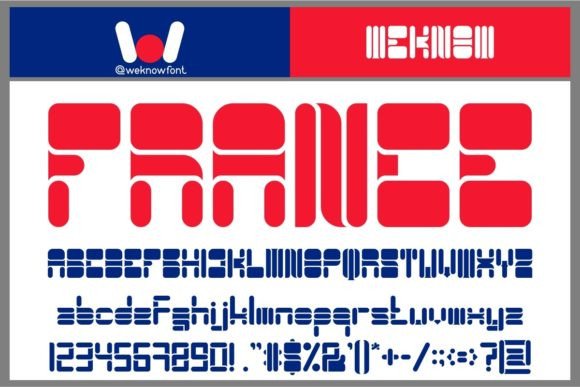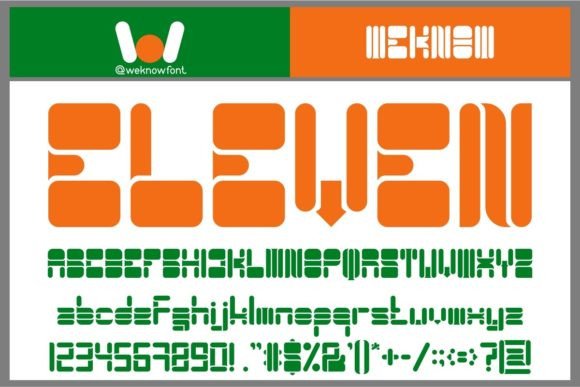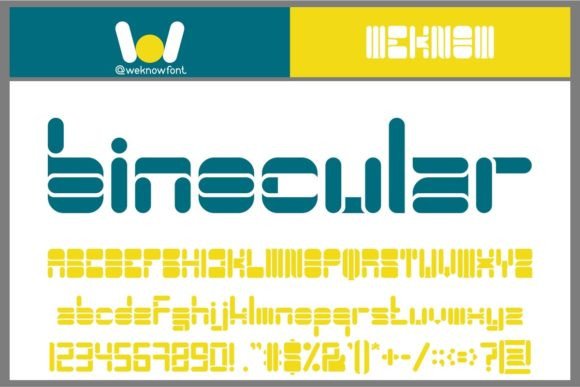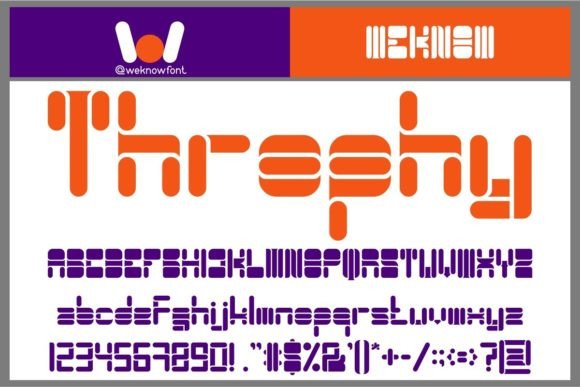
Introducing Football Font: The Ultimate Techno-Themed Display Font for Creative Projects
Are you a designer, craftsperson, or creative enthusiast looking for a font that can elevate your projects to the next level? Look no further than Football Font, a cutting-edge, techno-themed display font designed to make a statement. Whether you’re working on a logo, logotype, headline, corporate identity, brand identity, or any other creative project, Football Font is the perfect choice.
What is Football Font?
Football Font is a modern, techno-inspired display font that exudes a sense of dynamism and energy. Its sleek lines, bold shapes, and futuristic aesthetic make it an ideal choice for designers and crafters who want to add a touch of innovation and excitement to their work. This versatile font can be used for a wide range of applications, from apparel and posters to music and movie projects, and even digital platforms like YouTube and Instagram.
Key Features of Football Font
- Techno-themed design: Football Font boasts a unique, techno-inspired design that’s perfect for projects that require a modern and edgy look.
- Highly versatile: This font can be used for a variety of applications, including logos, logotypes, headlines, corporate identities, brand identities, apparel, posters, music and movie projects, and more.
- Easy to read: Despite its bold and futuristic design, Football Font is highly legible, making it perfect for use in headlines, titles, and other display text.
- Customizable: Football Font can be easily customized to fit your specific design needs, allowing you to experiment with different colors, sizes, and styles.
Use Cases for Football Font
Football Font is an incredibly versatile font that can be used in a wide range of creative projects. Here are some examples of how you can use this font to elevate your designs:
- Logo design: Use Football Font to create a bold and memorable logo that showcases your brand’s personality and style.
- Apparel design: Add a touch of edginess to your apparel designs with Football Font, perfect for t-shirts, hoodies, and other clothing items.
- Poster design: Create eye-catching posters for music festivals, concerts, or movie premieres with Football Font.
- Brand identity: Establish a strong brand identity with Football Font, ideal for use in business cards, letterheads, and other marketing materials.
- Digital platforms: Use Football Font to create engaging and attention-grabbing content for YouTube, Instagram, and other digital platforms.
Why Choose Football Font?
With so many fonts available, why choose Football Font for your creative projects? Here are just a few reasons why Football Font stands out from the crowd:
- Unique design: Football Font boasts a unique and recognizable design that’s sure to make your projects stand out.
- High-quality craftsmanship: This font is crafted with attention to detail and a focus on quality, ensuring that it looks great in any design.
- Flexibility: Football Font can be used in a wide range of applications, making it a versatile addition to any designer’s toolkit.
Football Font is a powerful and versatile font that’s perfect for designers, craftspersons, and creative enthusiasts who want to add a touch of innovation and excitement to their projects. With its techno-themed design, high legibility, and customizability, Football Font is an excellent choice for a wide range of applications. Whether you’re working on a logo, apparel, poster, or digital platform, Football Font is sure to elevate your designs to the next level.